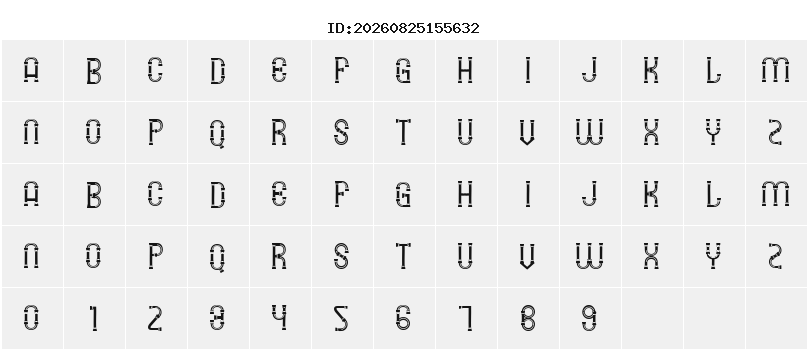
About SMG_Lawang Sewu.ttf
SMG_Lawang Sewu.ttf is a modern, elegant sans-serif font designed for ultimate readability and visual harmony. Perfect for branding, headlines, web design, and print materials.